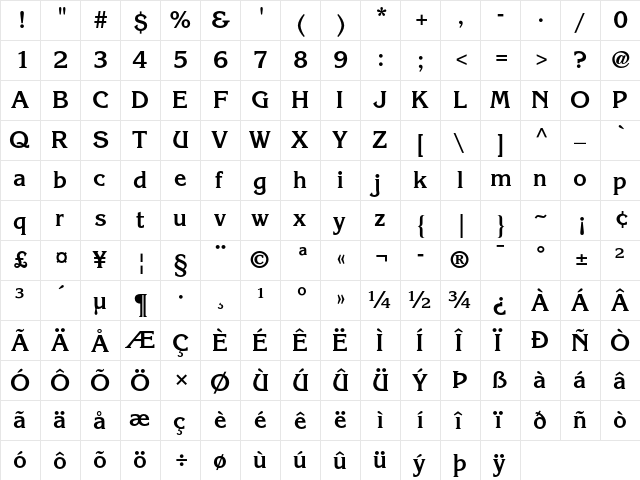
ITC Korinna Bold
Design Context for ITC Korinna Typeface
ITC Korinna is a composed and adaptable typeface that performs quietly and consistently across a wide range of design contexts. Its bold stroke weight gives it real presence on the page.
Pro Tip: Pair ITC Korinna with a font of contrasting weight or personality to build a more expressive typographic hierarchy.